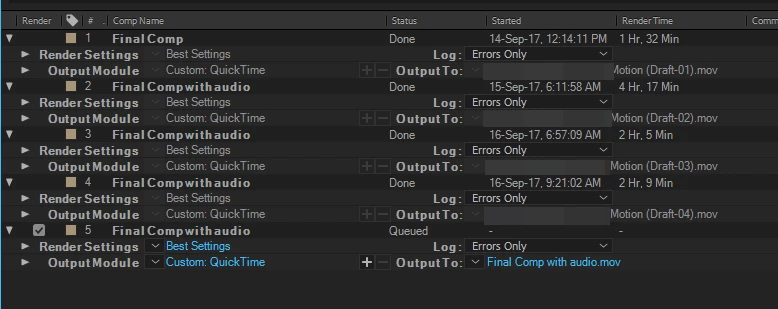
New UI font in CC 2018
Which font is being used now? Same or different across macOS and Windows?
Adobe Clean. Same, Mac and Win.
It's a shame this wasn't considered before the change was made. I mean the whole benefit of panels is to provide a seamless integrated experience.
I'm pretty sure it was considered; just not by you and I.
While there are some panels that make an effort to look-and-feel like Adobe's own, panel UIs in PPro and AE vary wildly.
And this font is not available to third party panels, I'm assuming?
Adobe Clean. Same, Mac and Win.
^ just screenshot my ae 2018 interface on windows 10.
i am pretty sure that in ae 2017 the font doesnt look like this...
Agreed, that looks weird. I have no idea what's happening there.